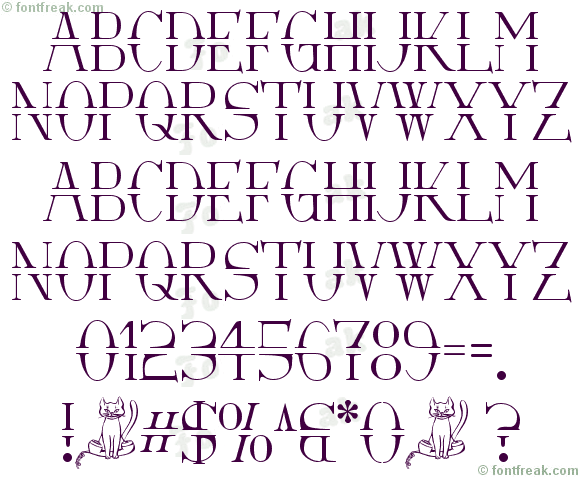
Via-A-Vis
Via-A-Vis is a distinctive display font designed by Peter Wiegel, categorized under the decorative style. Its unique visual characteristics make it an eye-catching choice for various design projects. The font features a moderate stroke weight with subtle contrasts, giving it a balanced yet striking appearance. The spacing is well-considered, ensuring legibility while maintaining its artistic flair. Decorative elements are integrated creatively, making the letters appear dynamic and engaging, which can draw the viewer's attention effectively.
This font is particularly well-suited for a range of applications. It excels in creating memorable wedding invitations, where its artistic nature can enhance the romantic aesthetic. Additionally, Via-A-Vis works wonderfully for movie posters, providing a dramatic touch that can elevate the visual narrative of the film. Restaurant menus can benefit from this font as well, adding a unique twist to the dining experience by making the menu visually appealing. It can also be employed in branding and promotional materials, giving small business owners a stylish edge in their marketing efforts. Content creators looking to add flair to their projects will find this font invaluable for various online and print media.
Targeting graphic designers, small business owners, and content creators alike, Via-A-Vis offers versatility and creativity. Its unique style allows it to stand out in a crowded marketplace, making it a go-to choice for those wanting to make a statement. The Via-A-Vis font free download provides an accessible opportunity for designers looking to enhance their projects with a distinctive typeface. This font stands out due to its artistic qualities combined with practical usability, making it not just a visual treat but also a functional asset in design.